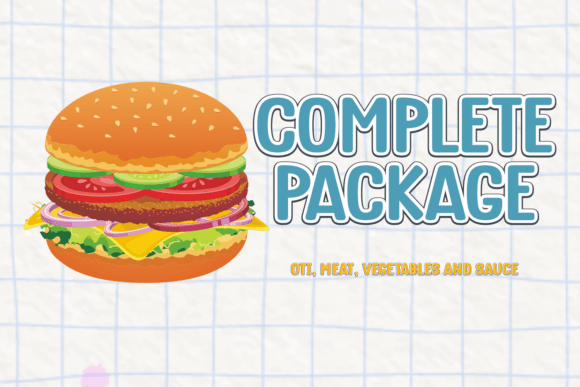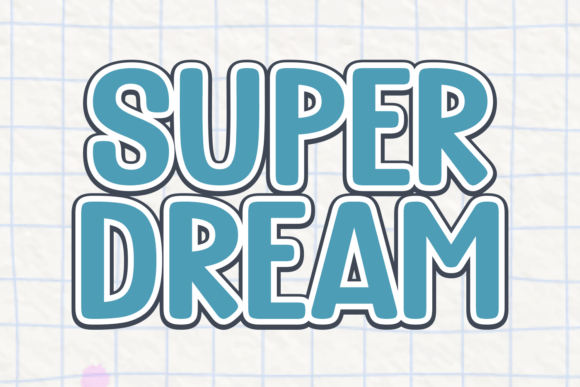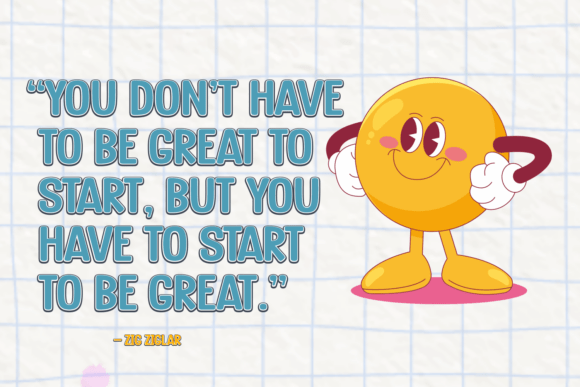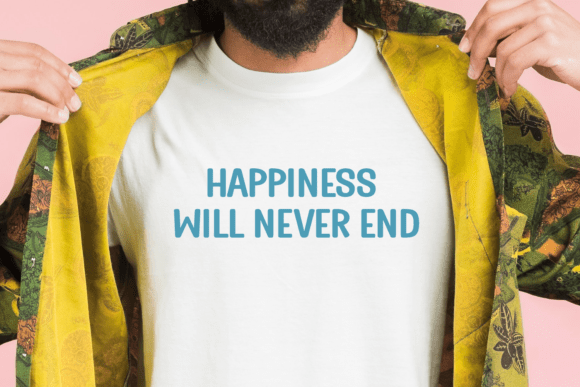
The Quest for the Perfect Font: Discovering Blue Notes
I’ll never forget the frustration of working on a design project, hours spent scrolling through font libraries, and yet, none seemed to fit the vibe I was going for. My client wanted something whimsical, yet professional; elegant, yet approachable. It was like searching for a needle in a haystack. That’s when I stumbled upon “Blue Notes” – a game-changing, hand-drawn font that became the perfect solution. In this article, I’ll share my journey with Blue Notes, its features, and how to make the most of it in your designs.
First Impressions: What I Love About Blue Notes
Blue Notes is more than just a font – it’s an experience. Here are the things that make it stand out:
- ✨ Smooth, rounded contours that give it a unique and elegant feel.
- ✅ Authentically hand-drawn with a personal touch that’s hard to find in digital fonts.
- 🌈 Whimsical and fancy without being too over-the-top, making it perfect for a variety of mediums.
- 💻 Highly versatile and works well in both digital and print formats.
Honest Review: The Not-Perfect-but-Almost-There Font
No font is perfect, and Blue Notes is no exception. Here are a few quirks to keep in mind:
- 🤔 Limited multilingual support – while it covers the basics, some languages might not be fully supported.
- ⚠️ Not ideal for very small font sizes – due to its intricate design, it may not be legible at very small sizes.
The Story Behind Blue Notes
The story goes that the creator of Blue Notes, a typography enthusiast, was inspired by the smooth sounds of jazz music and the elegance of handwritten notes. The goal was to create a font that captures the essence of musical blue notes – soulful, expressive, and unique. And so, Blue Notes was born – a font that not only looks great but also tells a story.
| What makes Blue Notes unique? | Its smooth, rounded contours and authentically hand-drawn design make it stand out. |
| Is Blue Notes suitable for body text? | While it’s primarily designed for headings and titles, it can be used for body text in larger sizes. |
| Does Blue Notes support multiple languages? | Blue Notes covers basic Latin characters and some special characters, but it may not support all languages. |
Blue Notes is more than just a font – it’s a design statement. Its unique blend of whimsy and elegance makes it perfect for designers, crafters, and creative hobbyists looking to add a personal touch to their projects. Whether you’re designing for digital or print, Blue Notes is sure to make your work stand out.